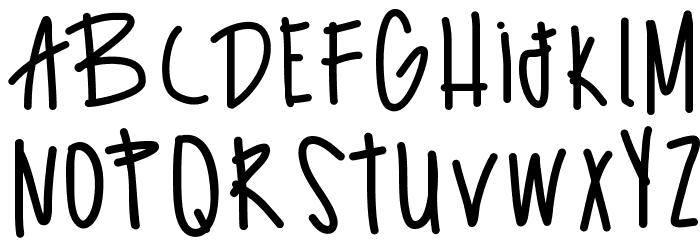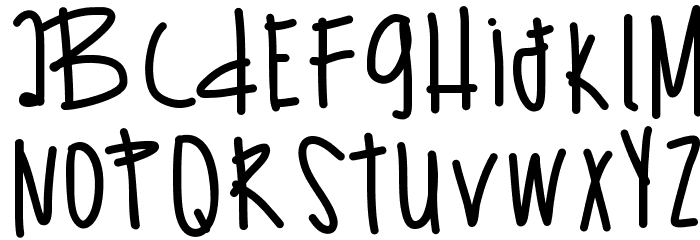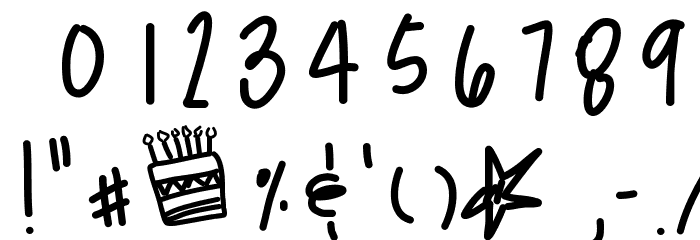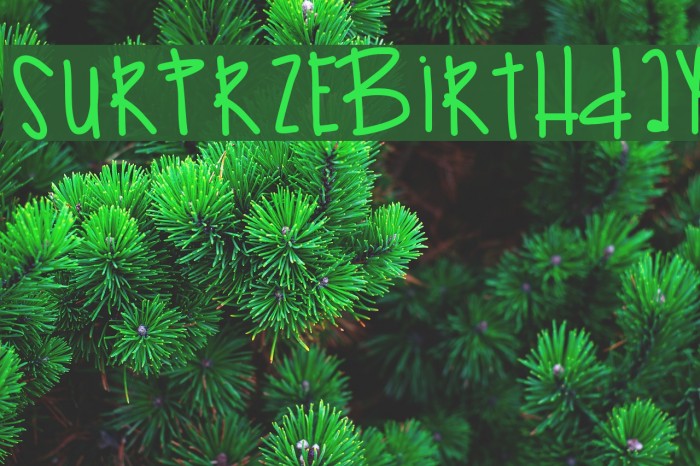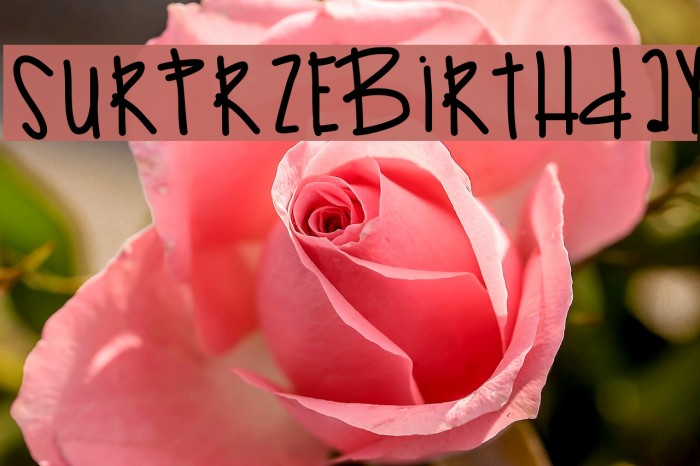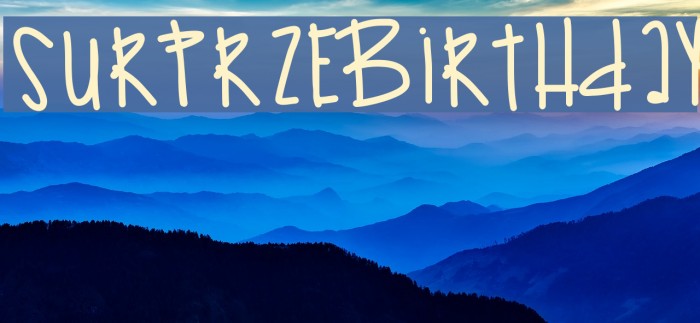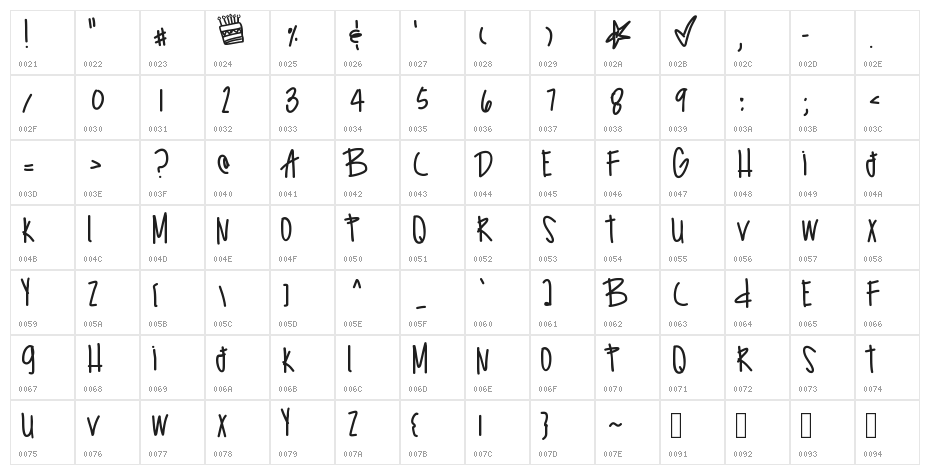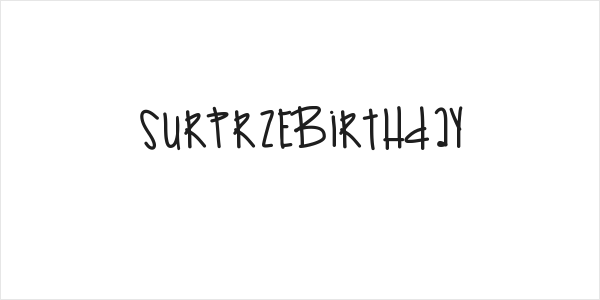
SurprzeBirthday Font
This playful and energetic font features a handwritten style that exudes a sense of fun and spontaneity. The characters are bold and slightly irregular, giving them a lively, informal appearance. The uppercase and lowercase letters maintain a consistent flow, with rounded edges and a slight tilt that adds to the whimsical feel. Numbers and special characters follow the same playful design, making this font versatile for various creative projects. The overall look is casual and approachable, perfect for adding a personal touch to any design.
A playful, handwritten font with a bold and lively style.
- Proposed Projects: Ideal for greeting cards, party invitations, children's books, and playful branding.
- Use Case: Headlines, Logos, Invitations